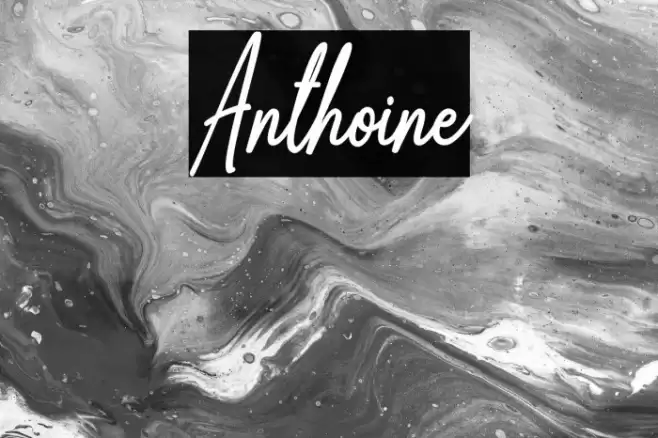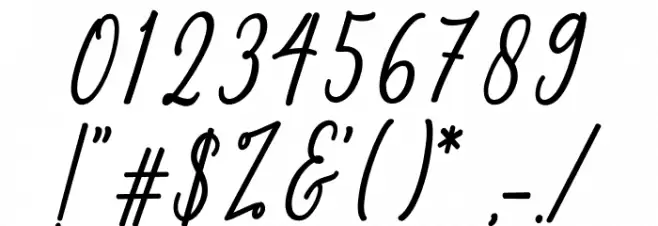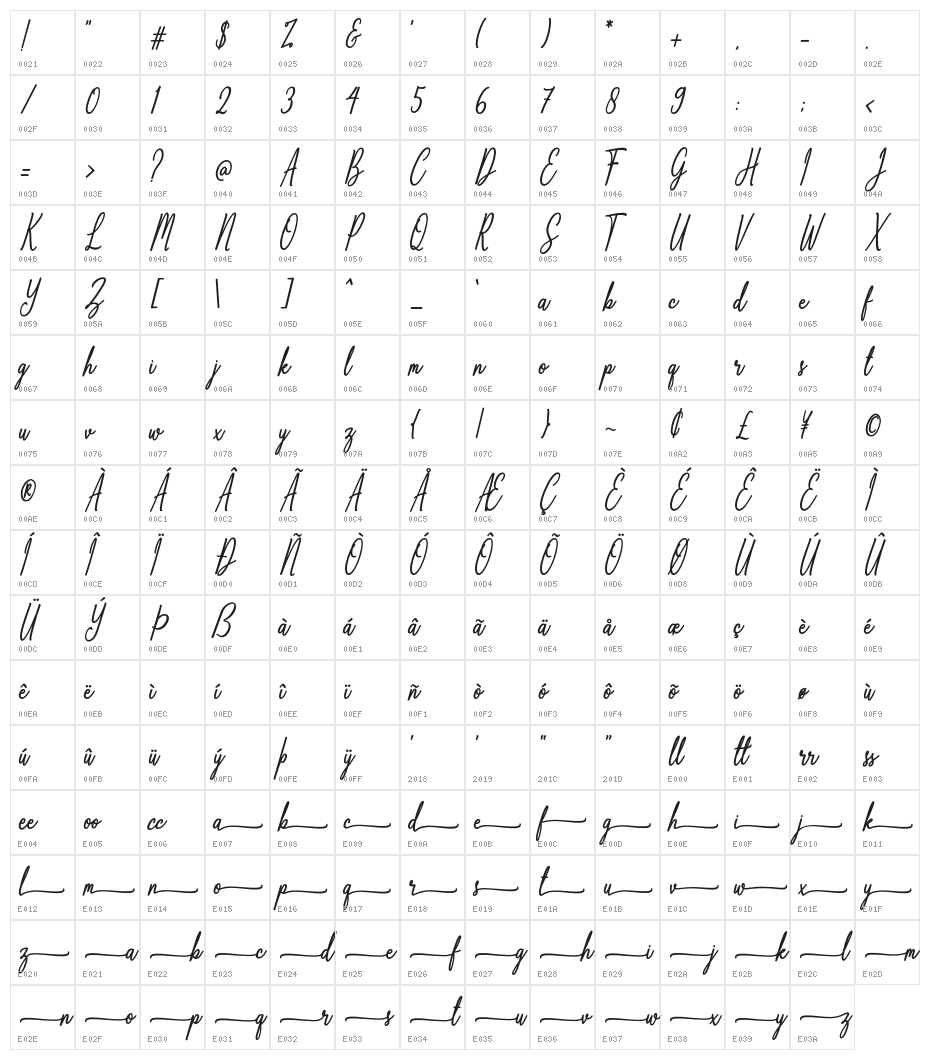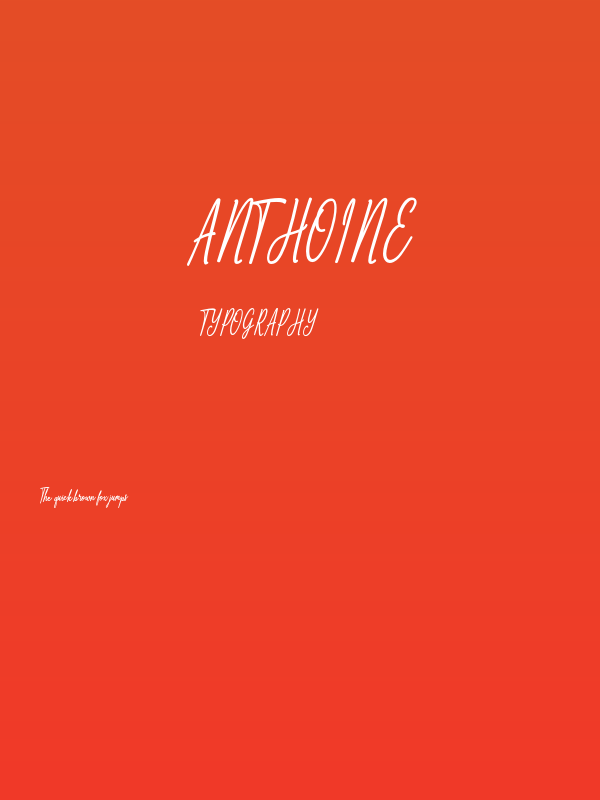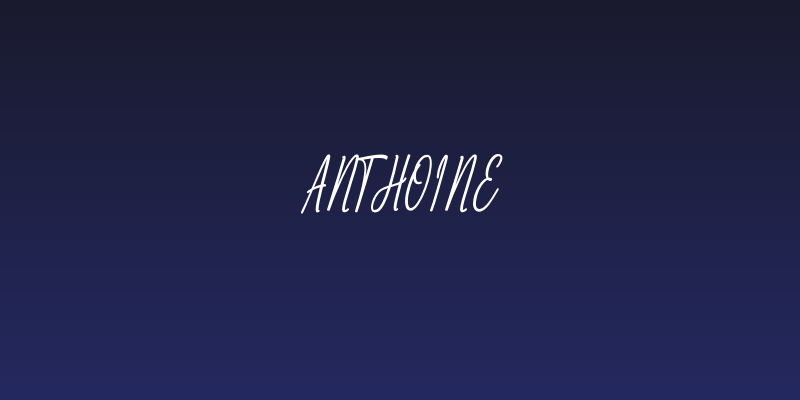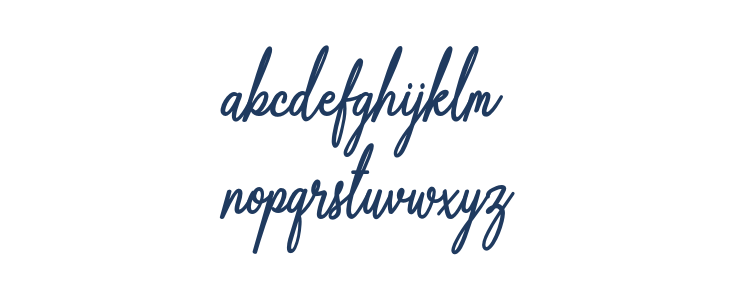
Anthoine Font
Anthoine Description
This font features a dynamic and fluid script style, characterized by its elegant and flowing letterforms. The uppercase letters are tall and slender, with a slight slant that adds a sense of motion and grace. The lowercase letters are more compact, maintaining the script's fluidity with smooth, connected strokes. The numerals are consistent with the overall style, offering a harmonious blend of curves and angles. Special characters are thoughtfully designed to complement the alphabet, ensuring versatility in various design contexts. This font exudes a sense of sophistication and creativity, making it suitable for projects that require a personal and artistic touch.
A fluid and elegant script font with dynamic, flowing letterforms from Uncategorized fonts.
- Proposed Projects: Ideal for wedding invitations, greeting cards, branding, and creative design projects.
- Overall Style: Elegant, Artistic
- Use Case: Logos, Invitations, Artistic projects